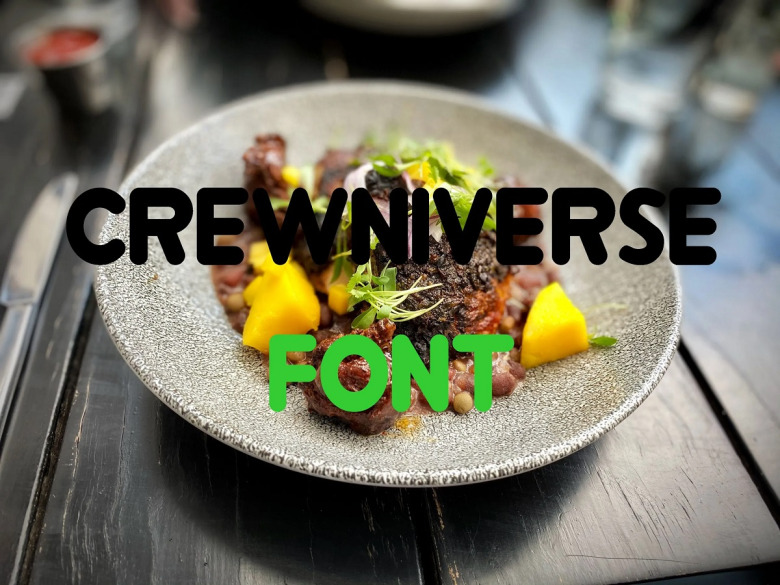
Crewniverse Font
Crewniverse is a high quality Sans-Serif font that is designed by MaxiGamer and is available for free download and personal use. The free version provides all uppercase and lowercase letters and a few special characters too.
Crewniverse Sans Serif Font